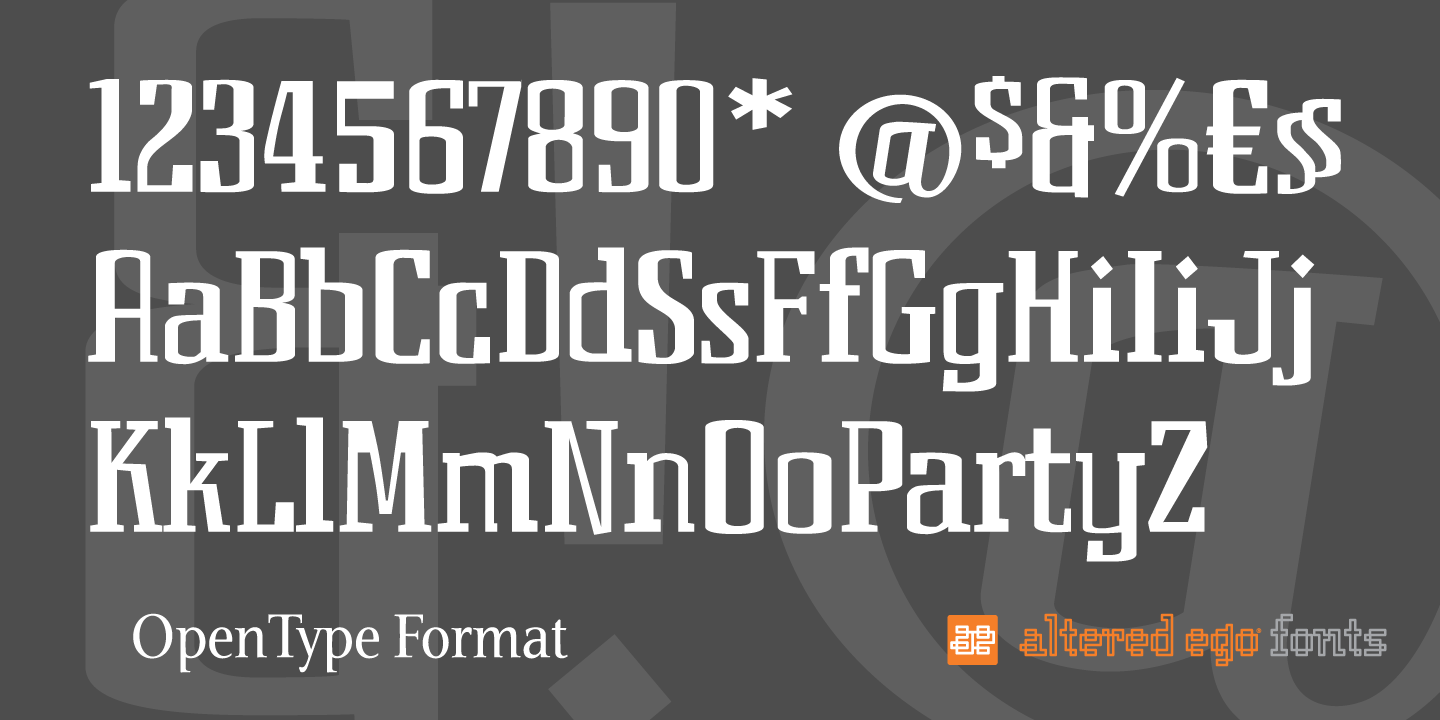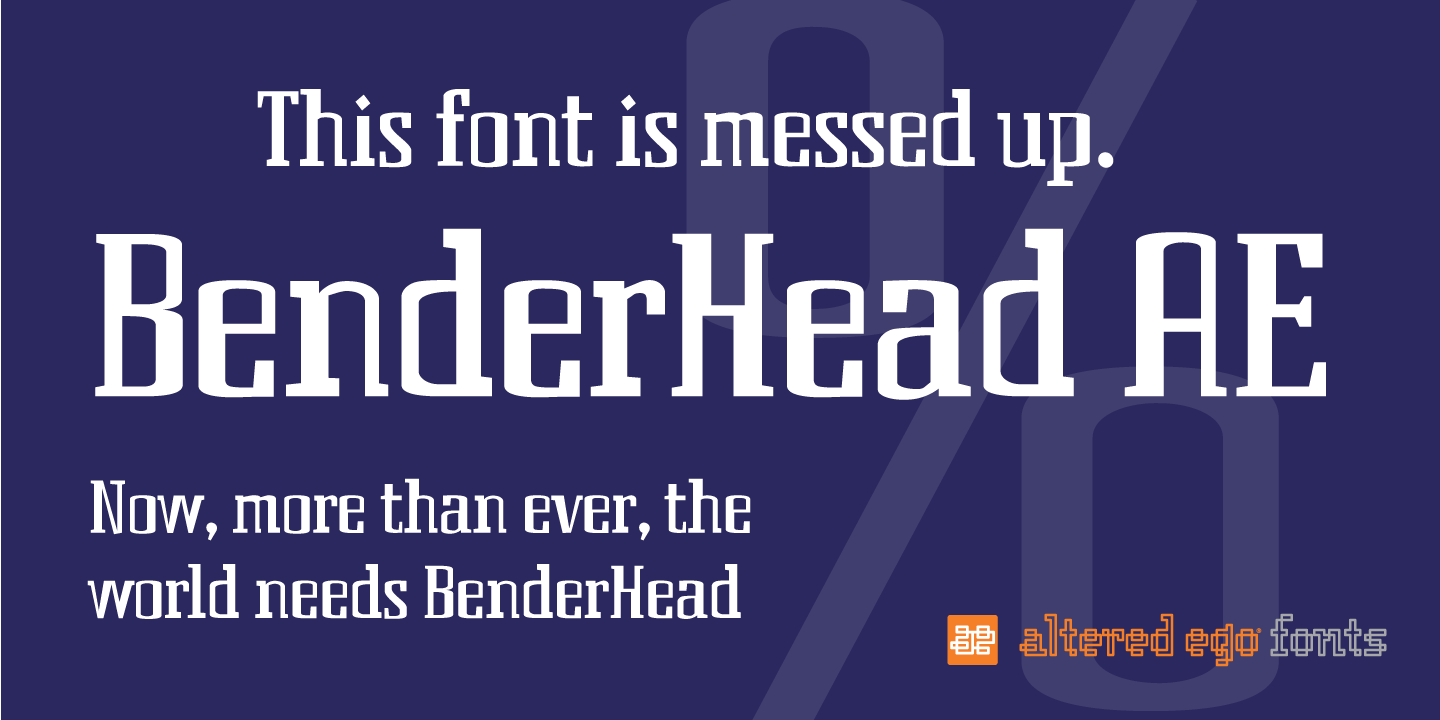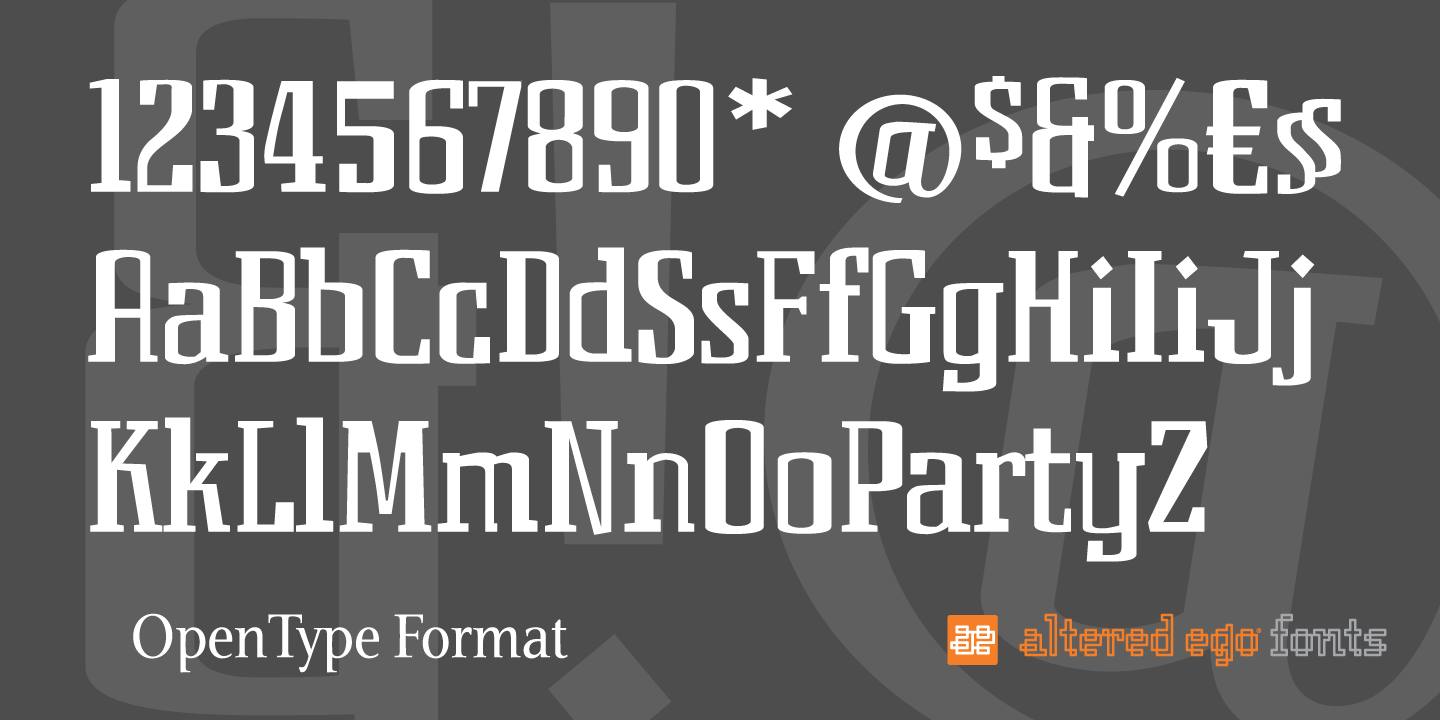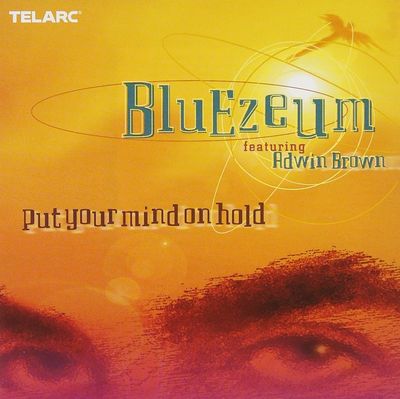
Altered Ego BenderHead Font
BenderHead AE is an irregular weight font that's casual, informal, and definitely out of the ordinary
Now, more than ever, the world needs BenderHead
Why? – Because... it just does. Don't ask why, just take our word for it.
BenderHead has its thicks and thins all mixed up. For you typographic aficionados, stroke weights and hairline weights aren't consistent, and many rules of typographic design were broken to make this font.
We’re sure there’s a use for Benderhead... we’ve used it on CD covers and posters — and saw it on a poster for the Zelda video game at Babbages. Remember Babbages?
I don't think we need to explain its history, its inspiration, or its historical reference to you... (If there were we would just be making it up).
Just accept it for what it is, and use it profusely.
BenderHead AE is what it is…
Who uses the BenderHead AE font?
Altered Ego BenderHead is used by recording companies and game designers. Check out the beautiful use in the photo to the right!